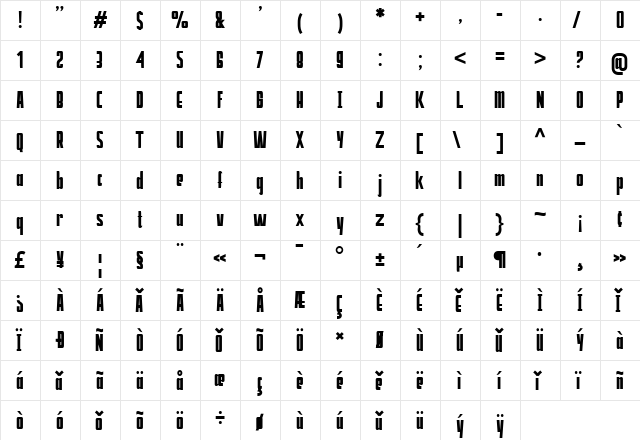
Harita ExtCond Regular
Design Context for Harita ExtCond Typeface
Harita ExtCond is a composed and adaptable typeface that performs quietly and consistently across a wide range of design contexts. Its narrow stance lets it pack a punch even in space-constrained designs.